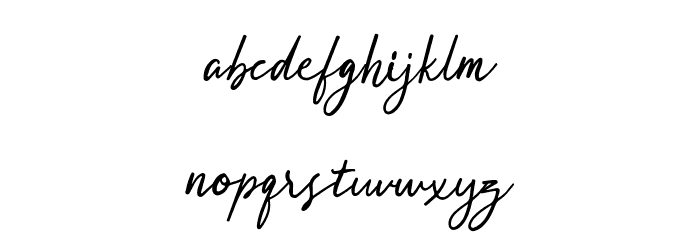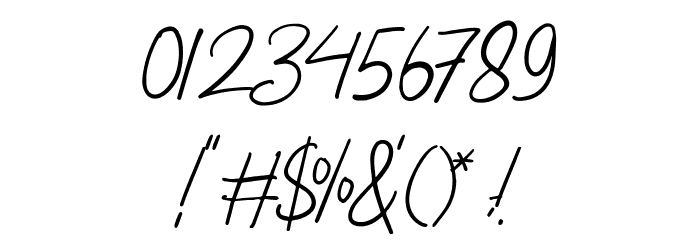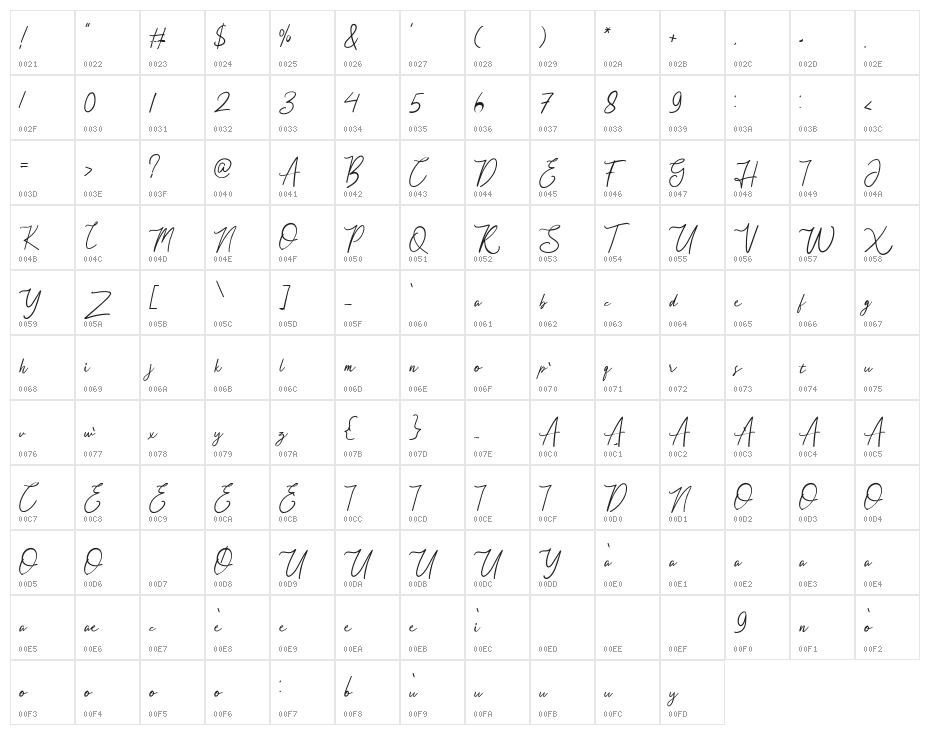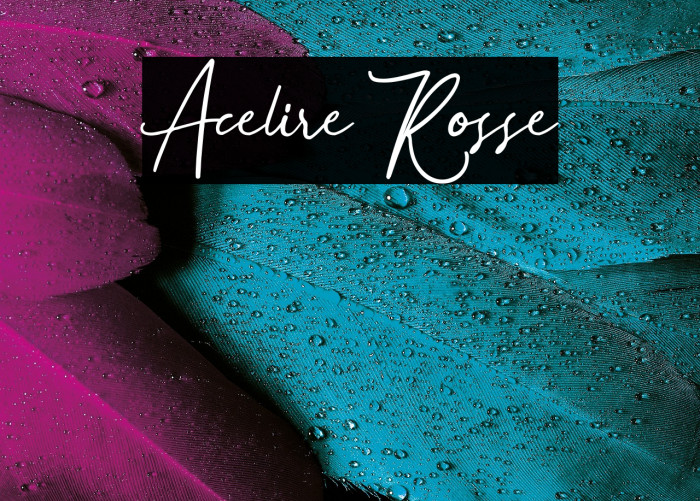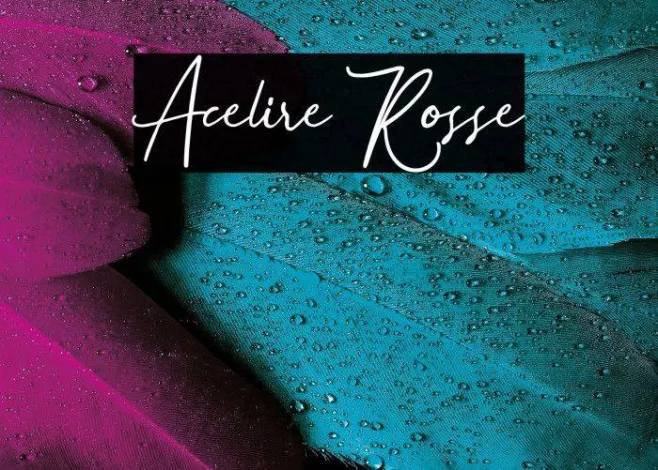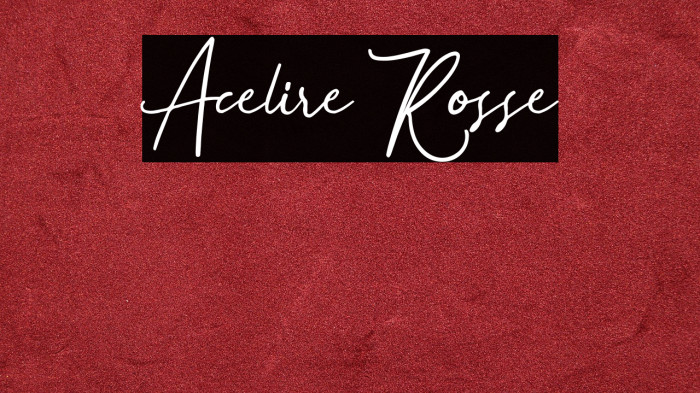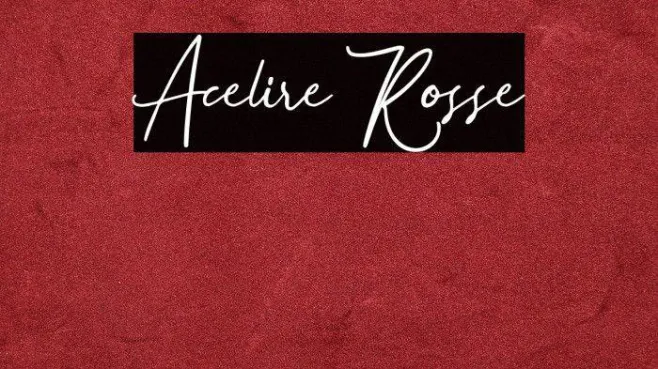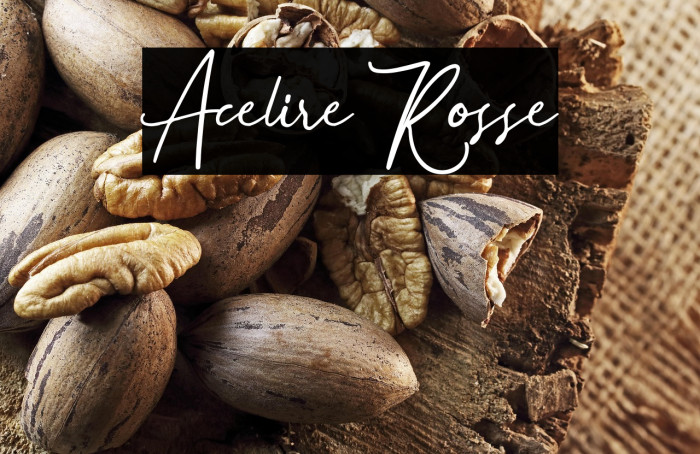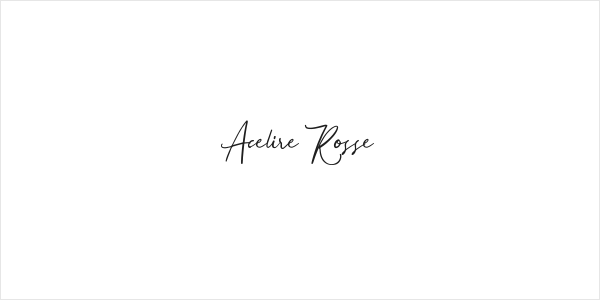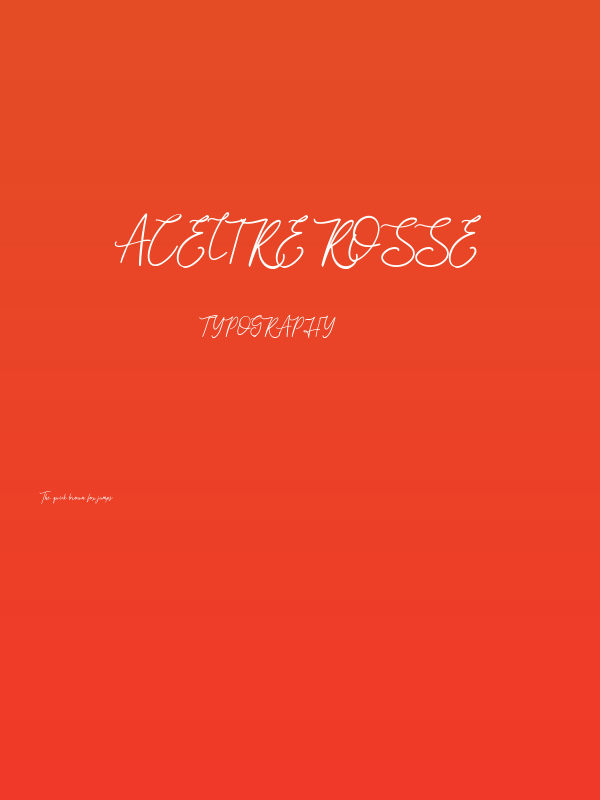
Acelire Rosse Font
This font features an elegant and flowing script style, characterized by its smooth, cursive strokes and graceful curves. The uppercase letters exhibit a sophisticated flair with elongated lines and subtle flourishes, while the lowercase letters maintain a consistent, fluid motion that enhances readability. The numerals are stylishly crafted, complementing the overall aesthetic with their balanced proportions. Special characters are thoughtfully integrated, maintaining the font's cohesive and artistic appearance. This font exudes a sense of elegance and refinement, making it suitable for a variety of creative applications.
An elegant, flowing script font with smooth, cursive strokes and graceful curves.
- Proposed Projects: Ideal for wedding invitations, elegant branding, greeting cards, and artistic projects.
- Overall Style: Elegant
- Use Case: Logos, Invitations, Artistic projects